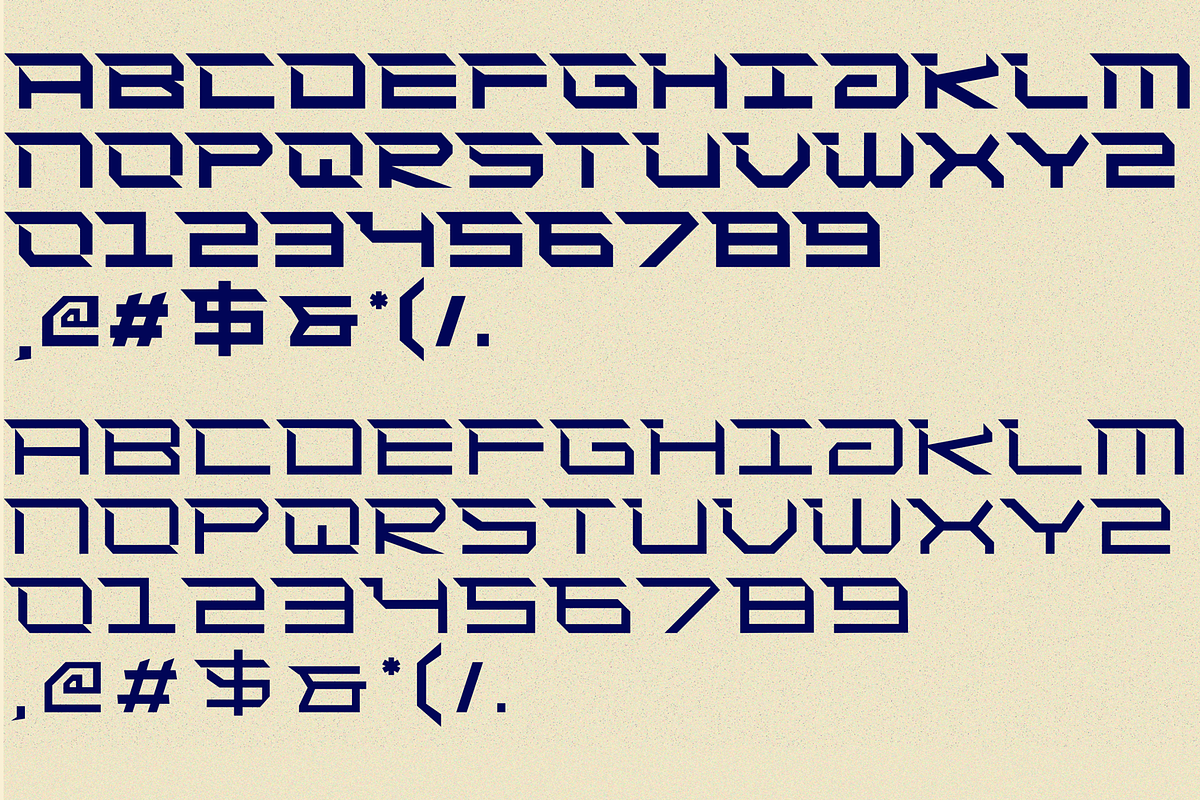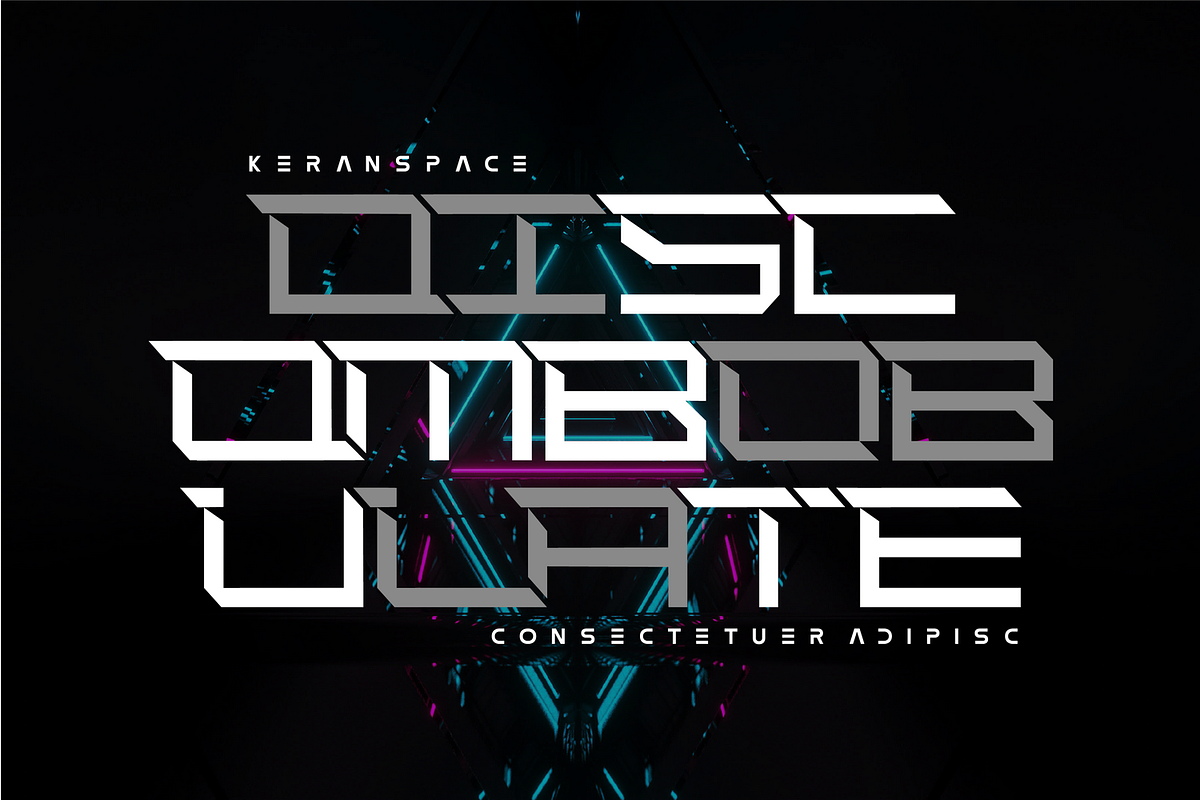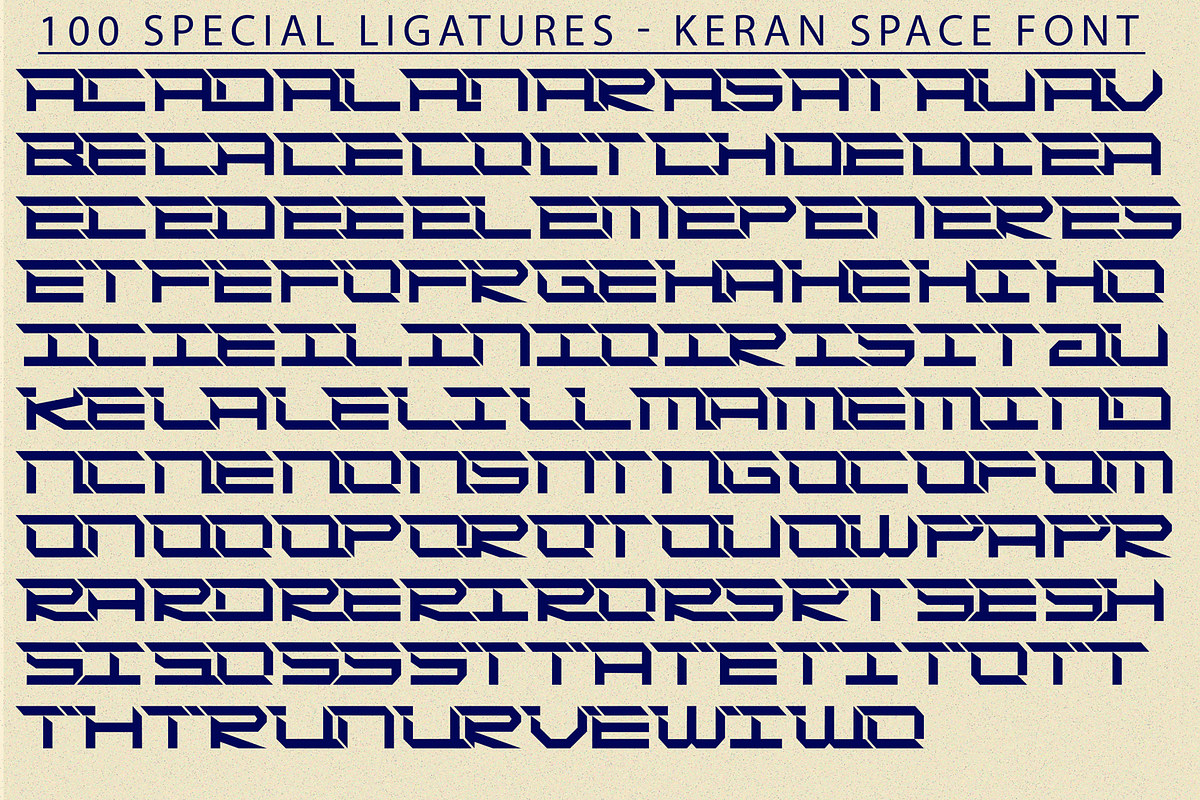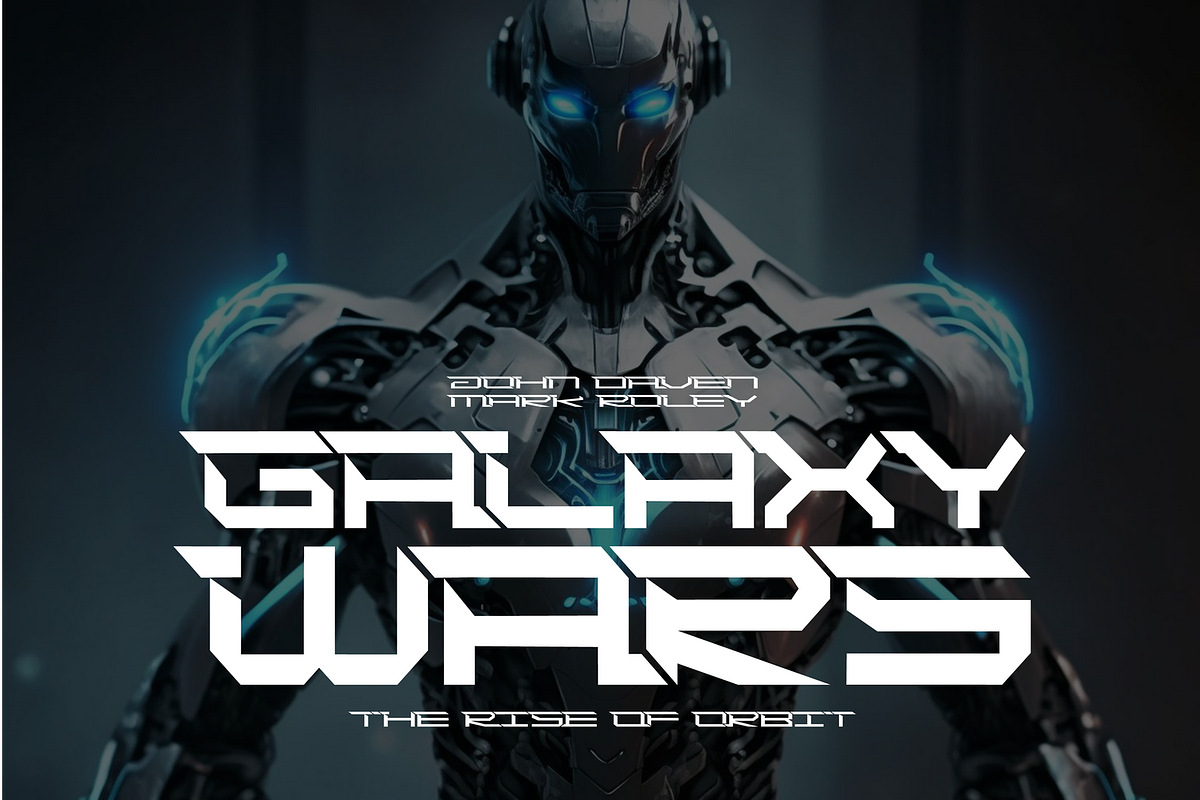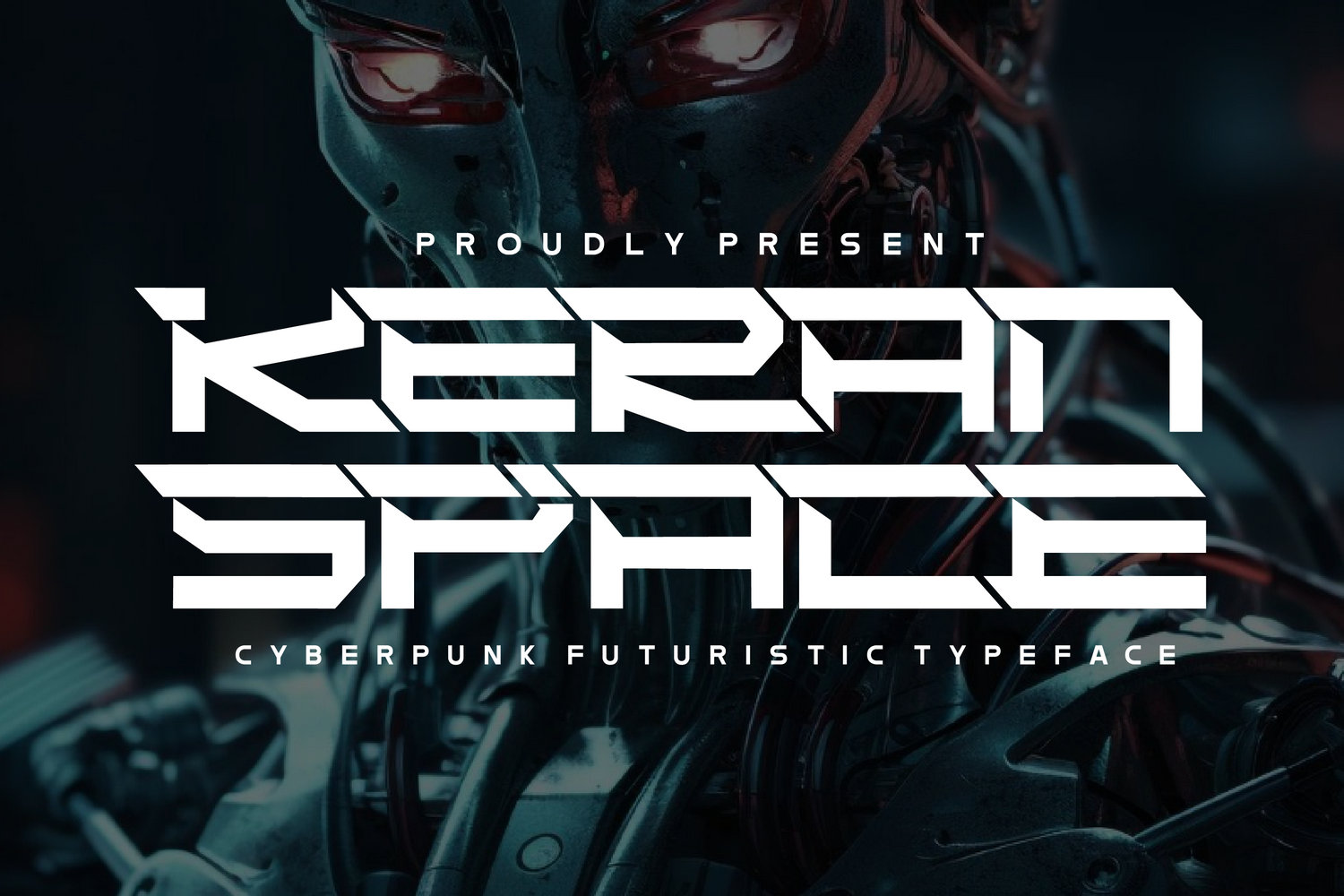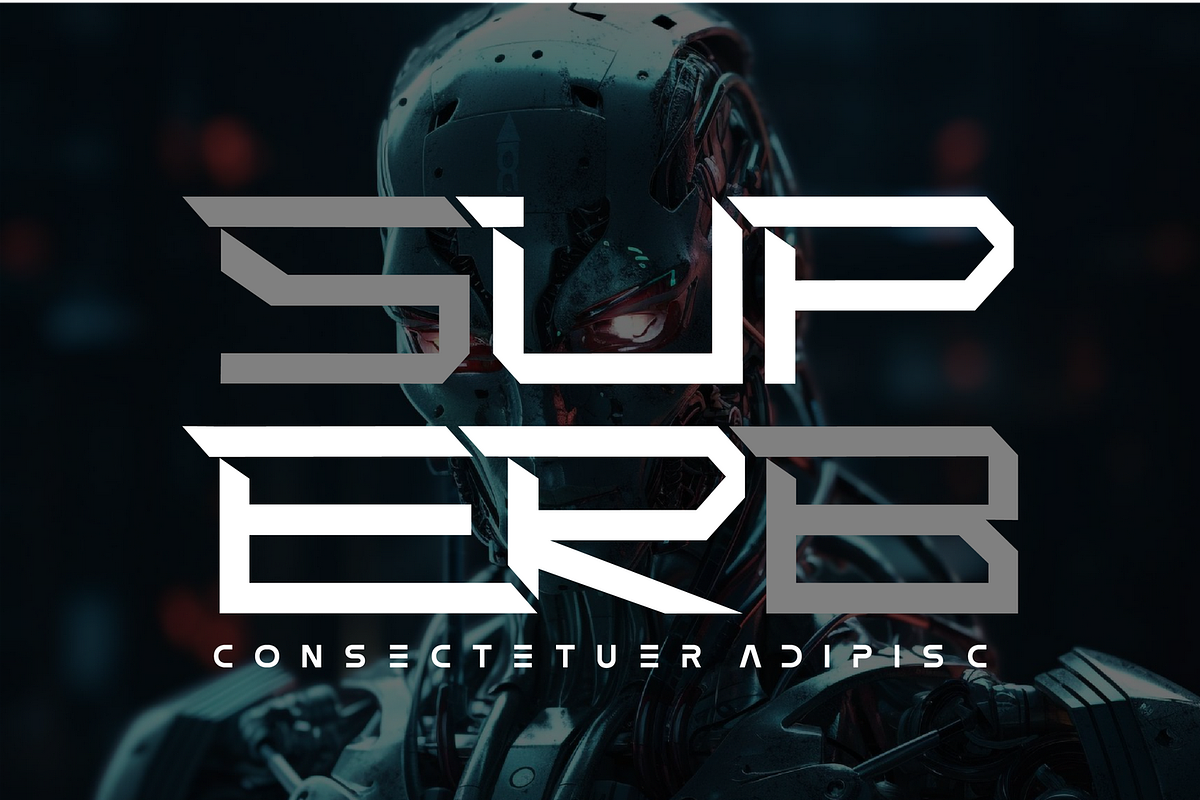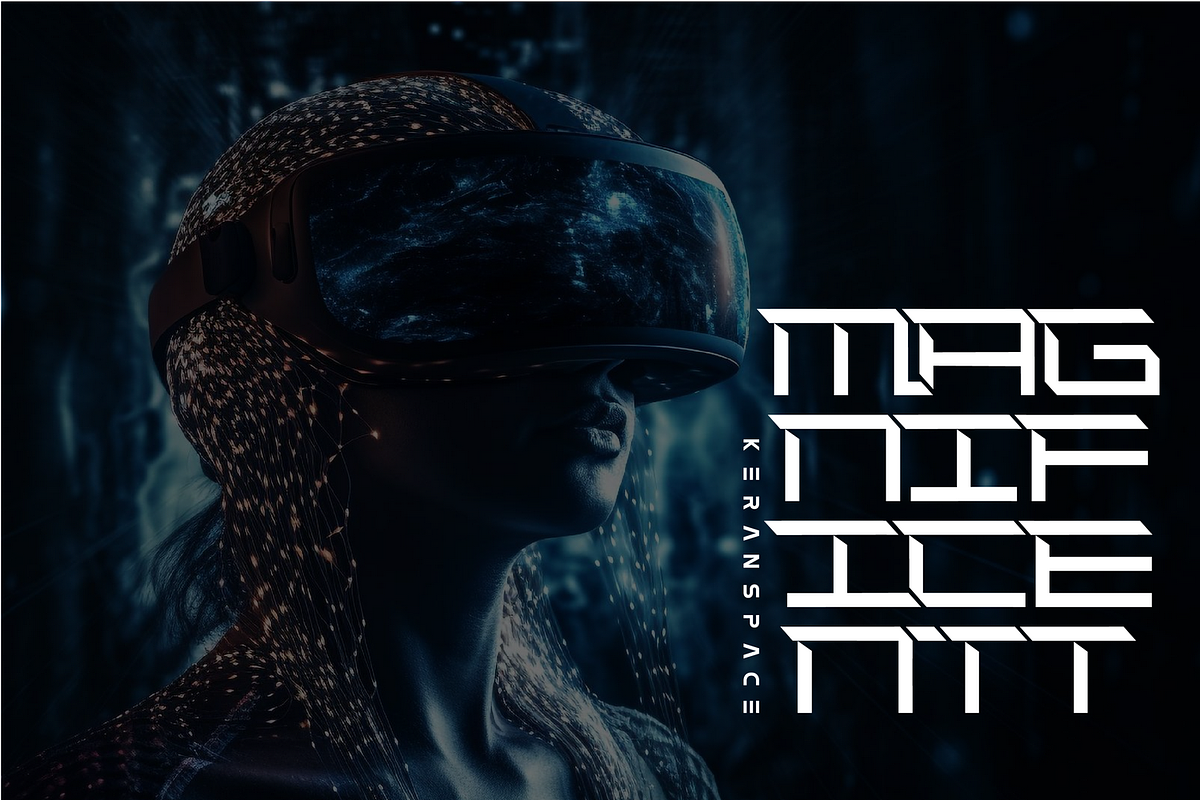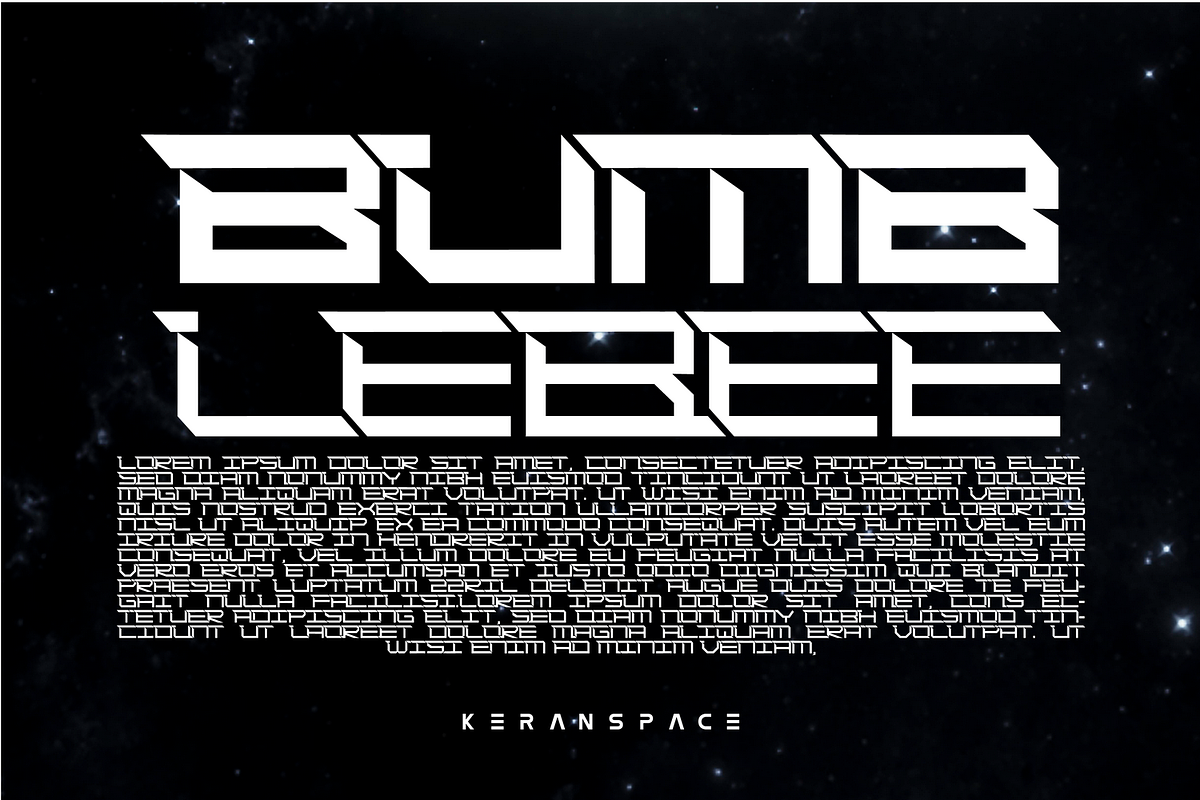
Keran Space Font
Keran Space Font is a futuristic design and space font technology, it's eye-catching, in-your-face display font. The finest details of this typeface are methodically and mathematically created. This font is created with all the tasks of a corporate font and also for the usage in a variety of projects, including branding, logos, titles, headlines, posters, screens, display, digital ads, and everything else.
Keran Space was built with OpenType features and includes 100 ligatures, alternate, numbers, punctuation, and it also supports other languages.
AC AD AL AN AR AS AT AU AV BE CA CE CH CO CT DE DI EA EC ED EE EL EM EN EP ER ES ET FE FO FR GE HA HE HI HO IE IC IL IN IO IR IS IT JU KE LA LE LI LL LO LY MA ME MI NC ND NE NG NO NT NS OC OF OM ON OO OP OR OT OU OW PA PR RA RD RE RI RO RS RT SE SH SI SO SS ST TA TE TH TI TO TR TT UM UN UR VE WI WO
- Special Ligatures